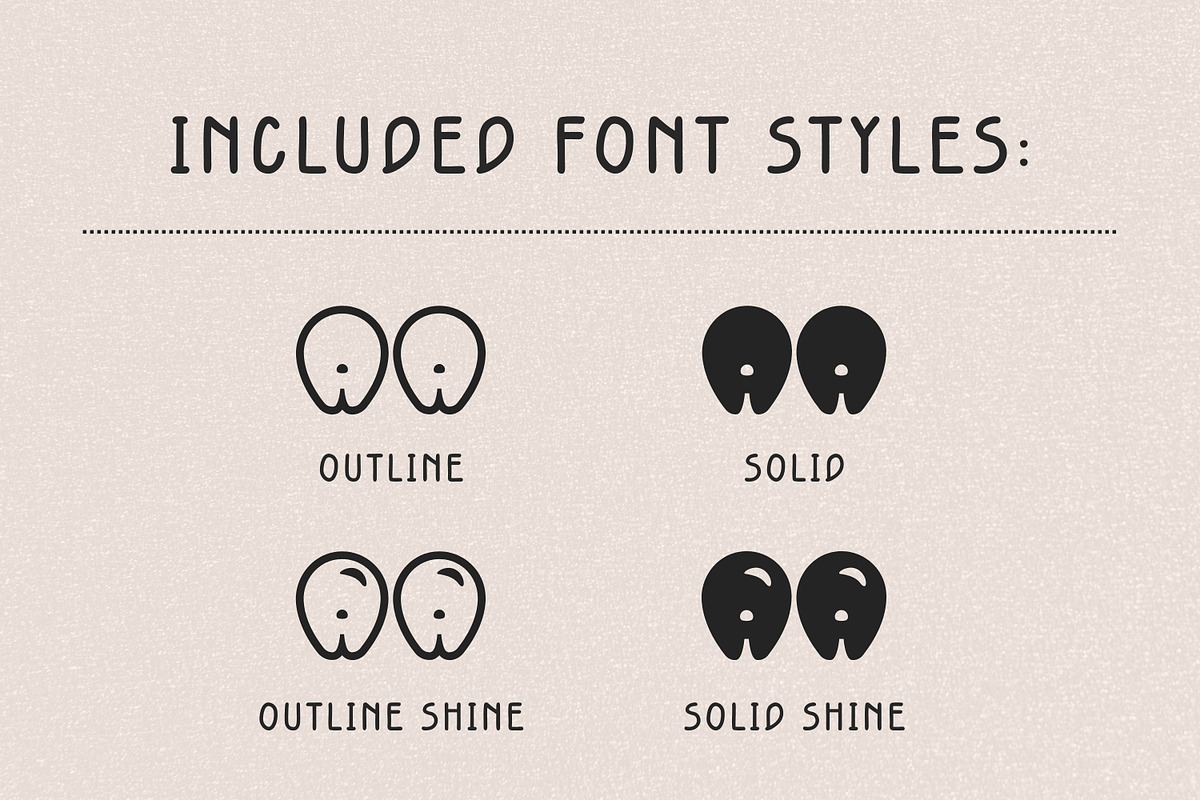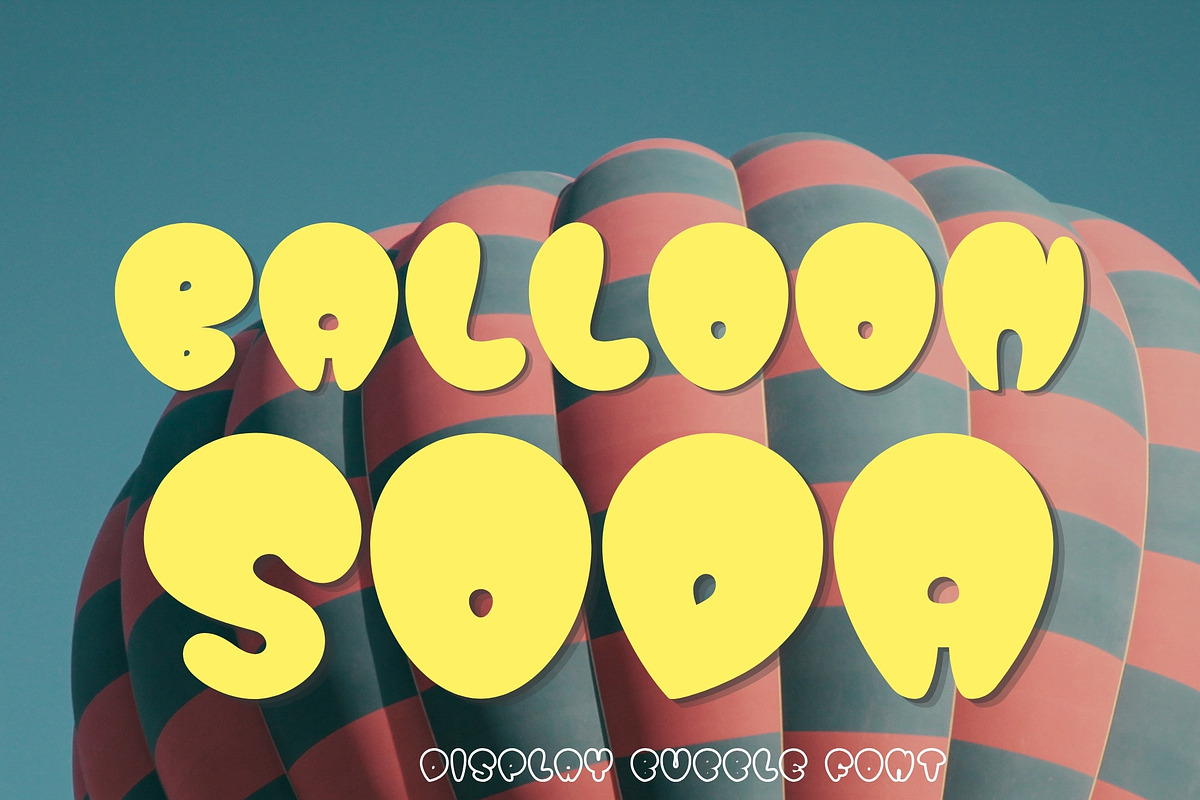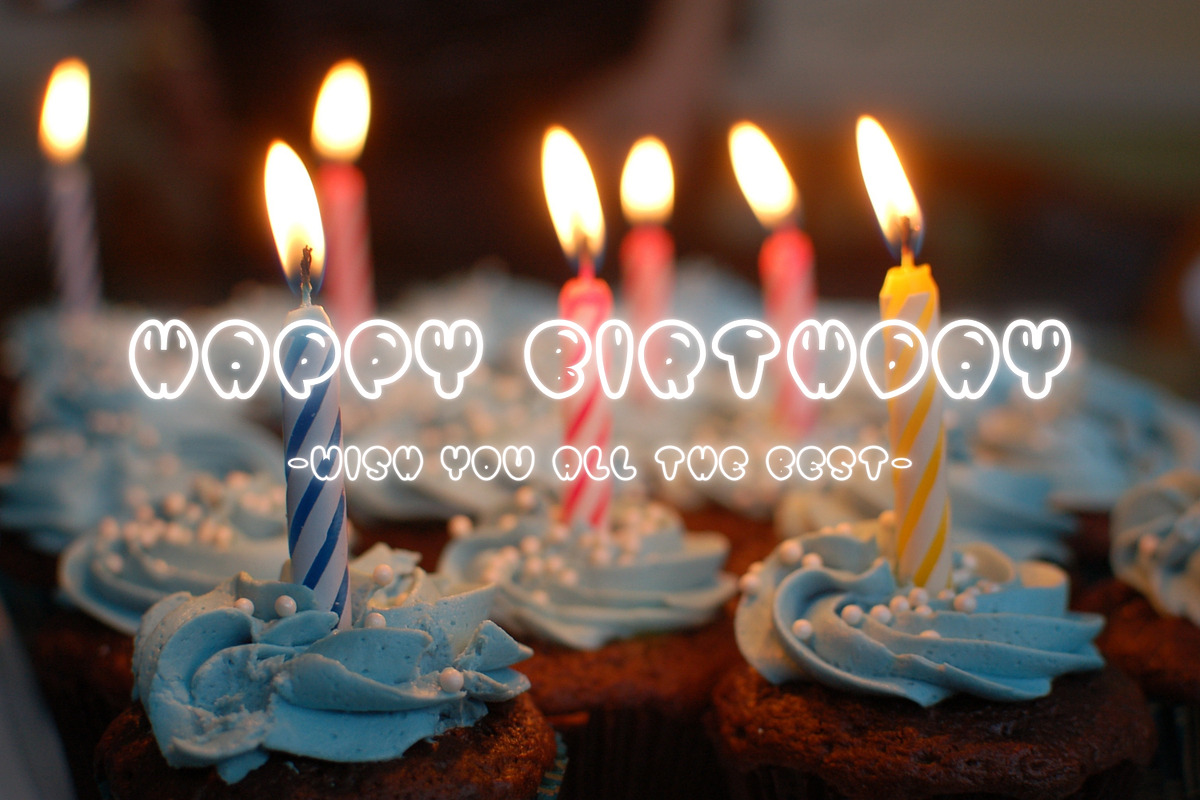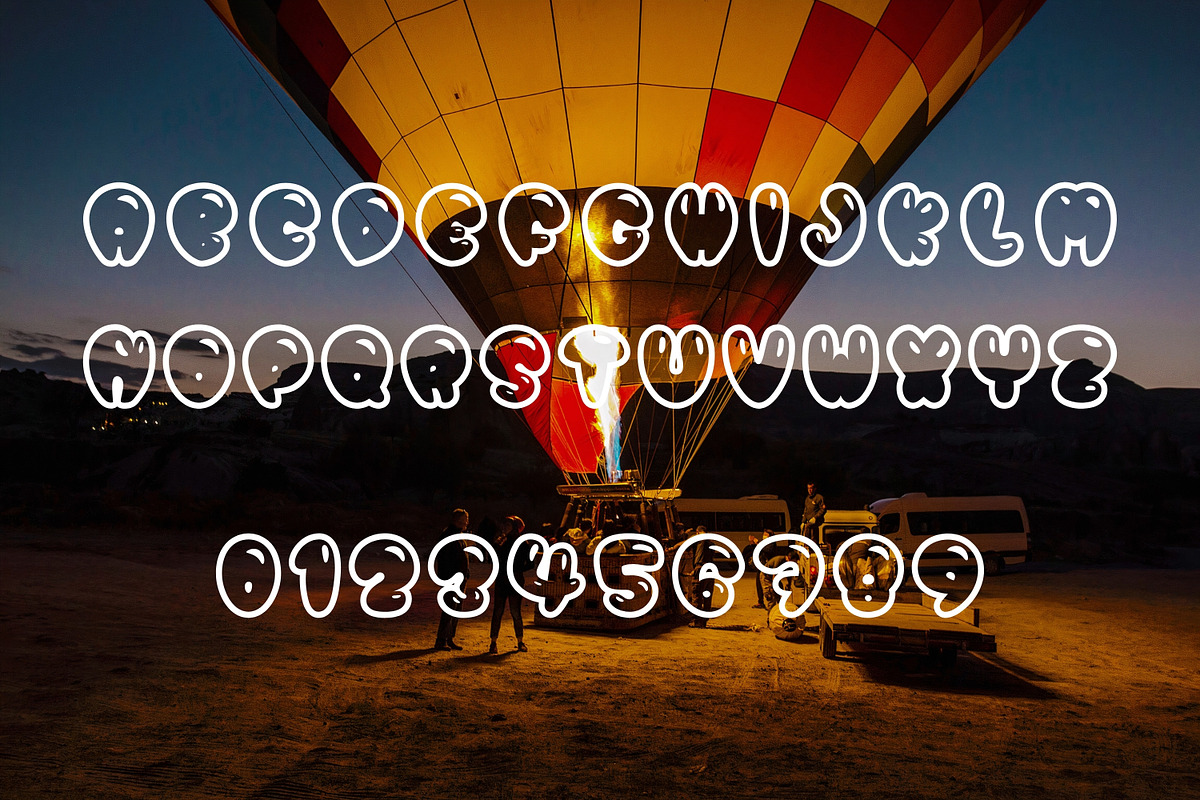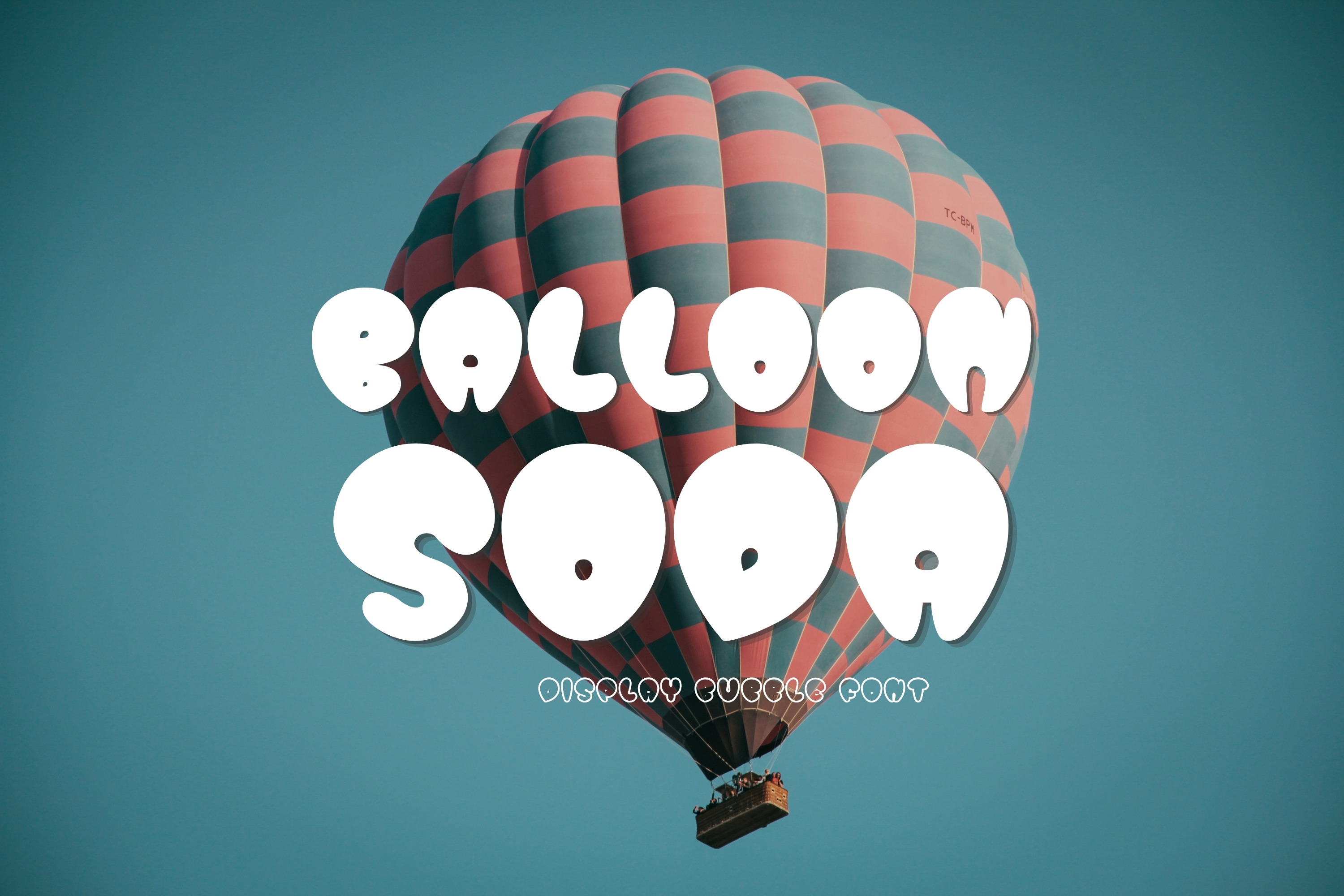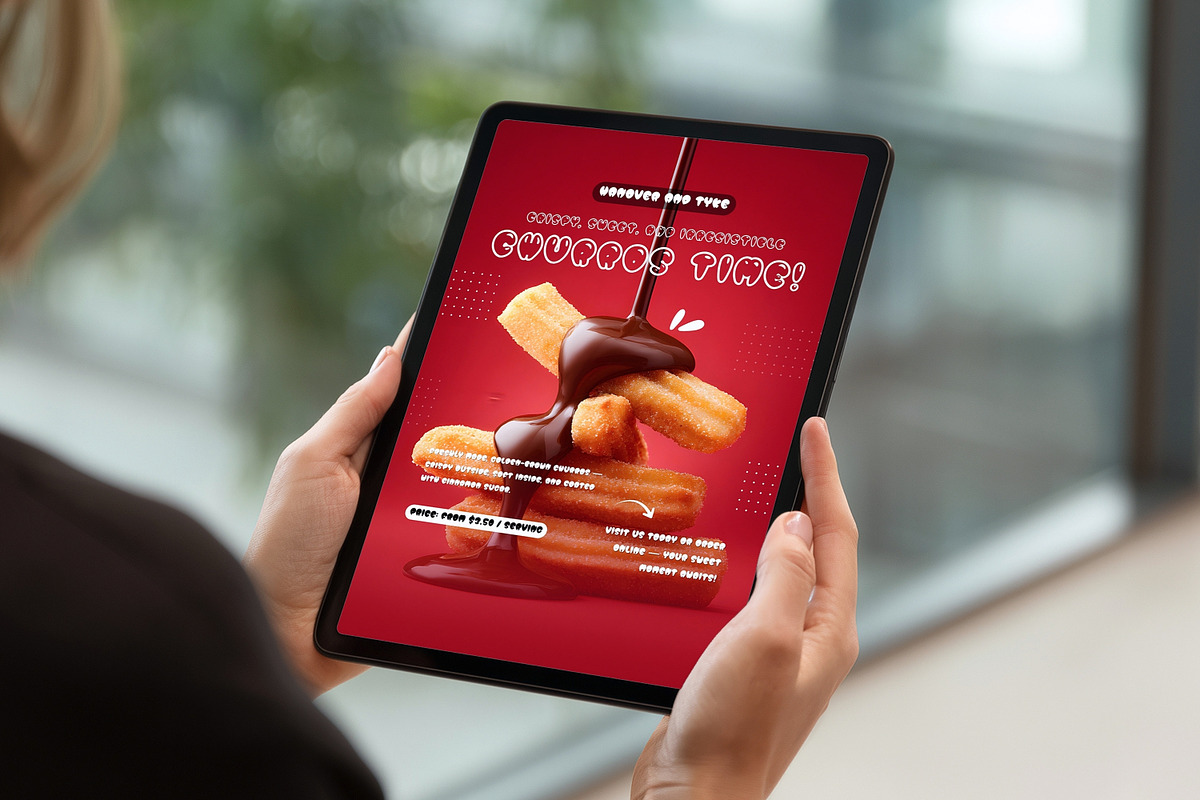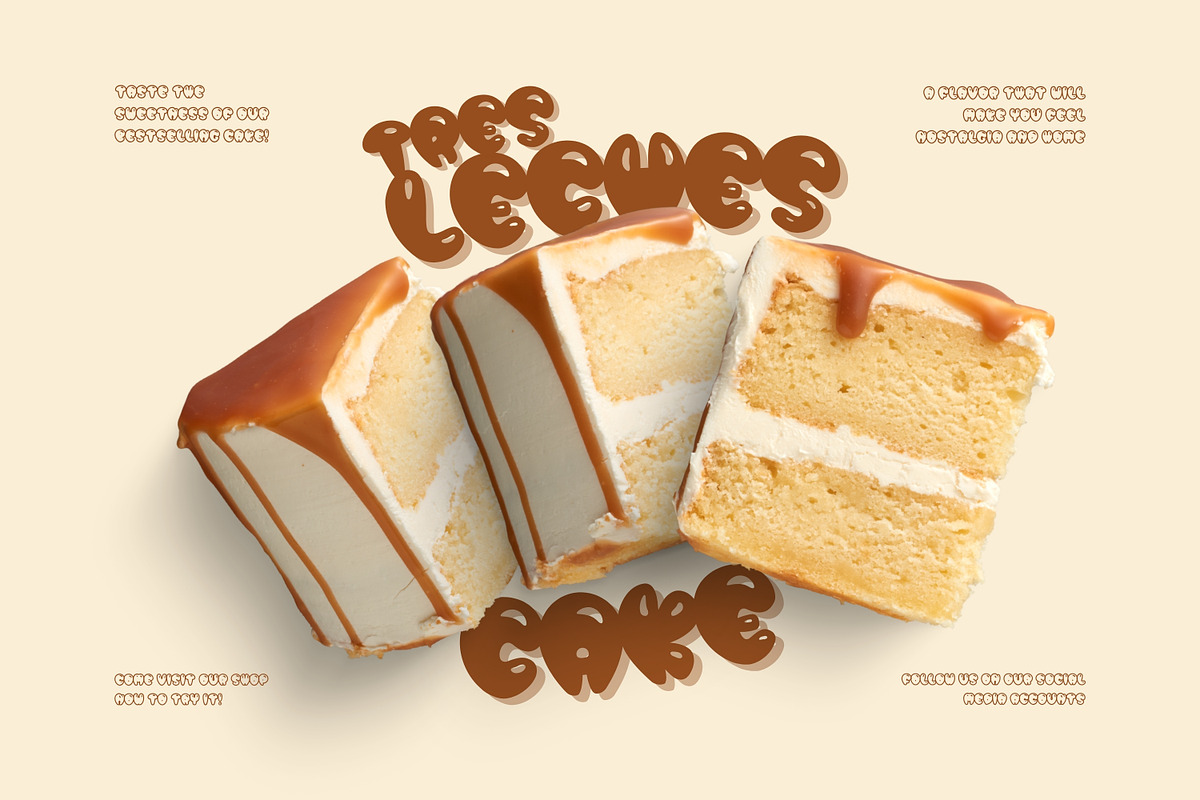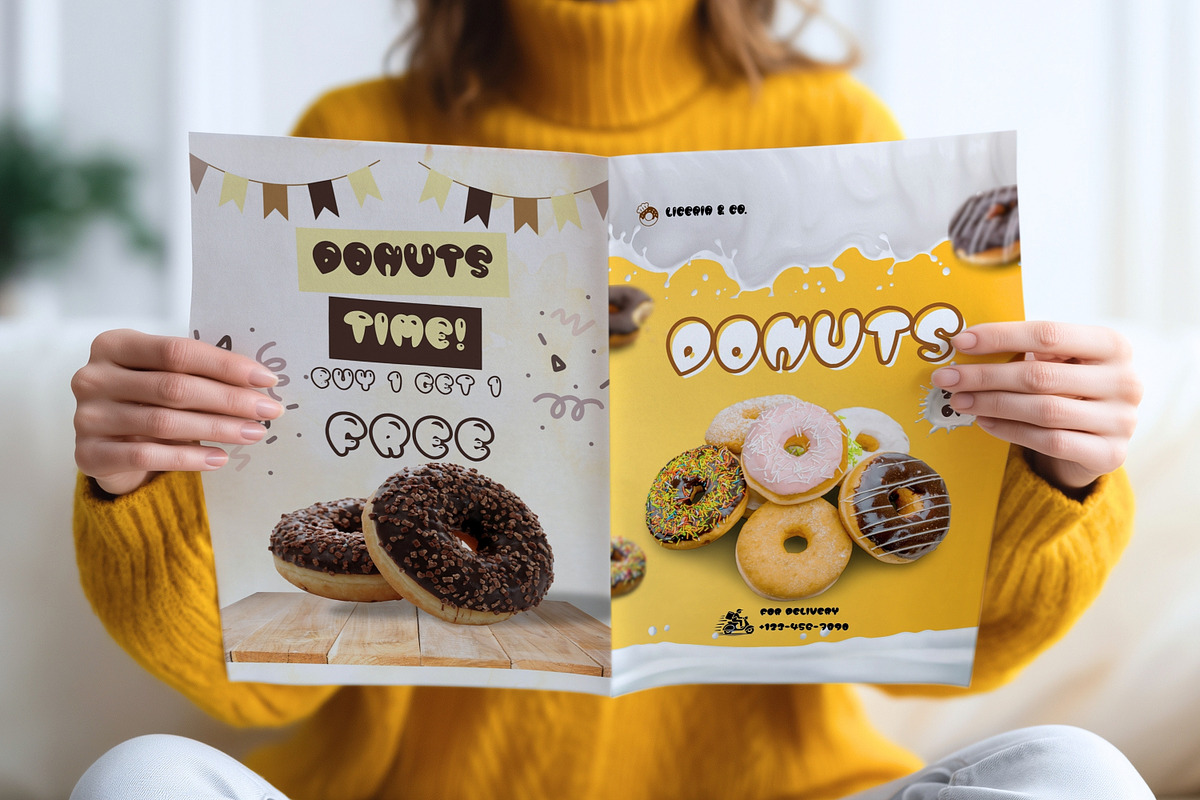
Bubble Display Font-Balloon Soda
✨ Balloon Soda
– Playful Display Bubble FontAdd a burst of fun and retro joy to your designs with Balloon Soda, the ultimate chunky bubble font! Perfectly plump, quirky, and full of personality, this display font is designed to make your headlines pop and your branding unforgettable.Whether you’re creating cute merchandise, groovy posters, or eye-catching social media graphics, Balloon Soda brings that nostalgic, cheerful energy everyone loves.